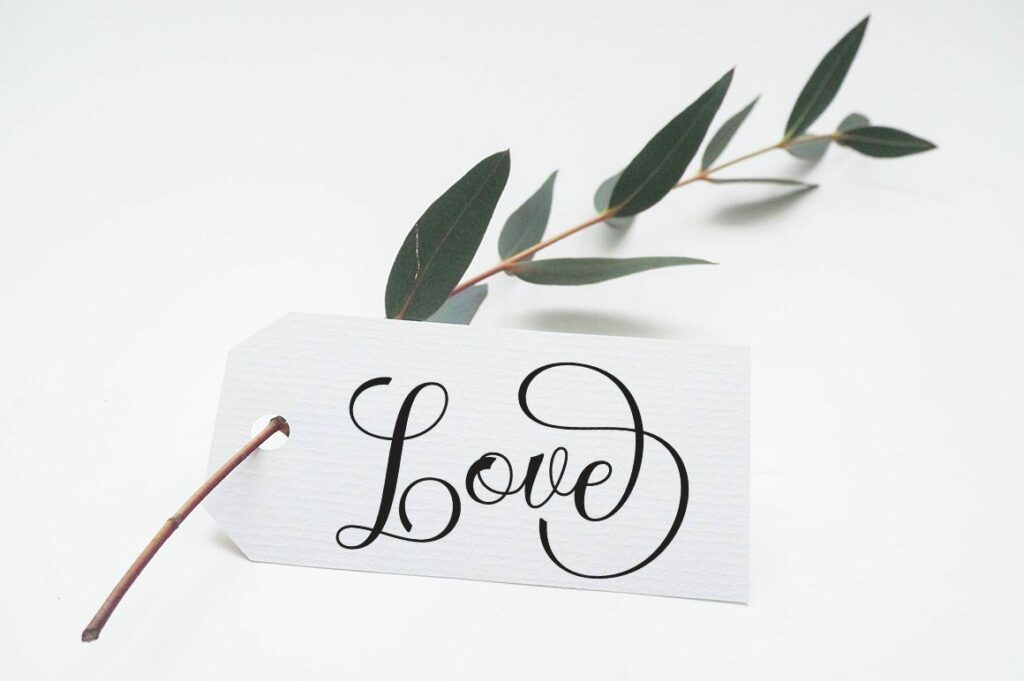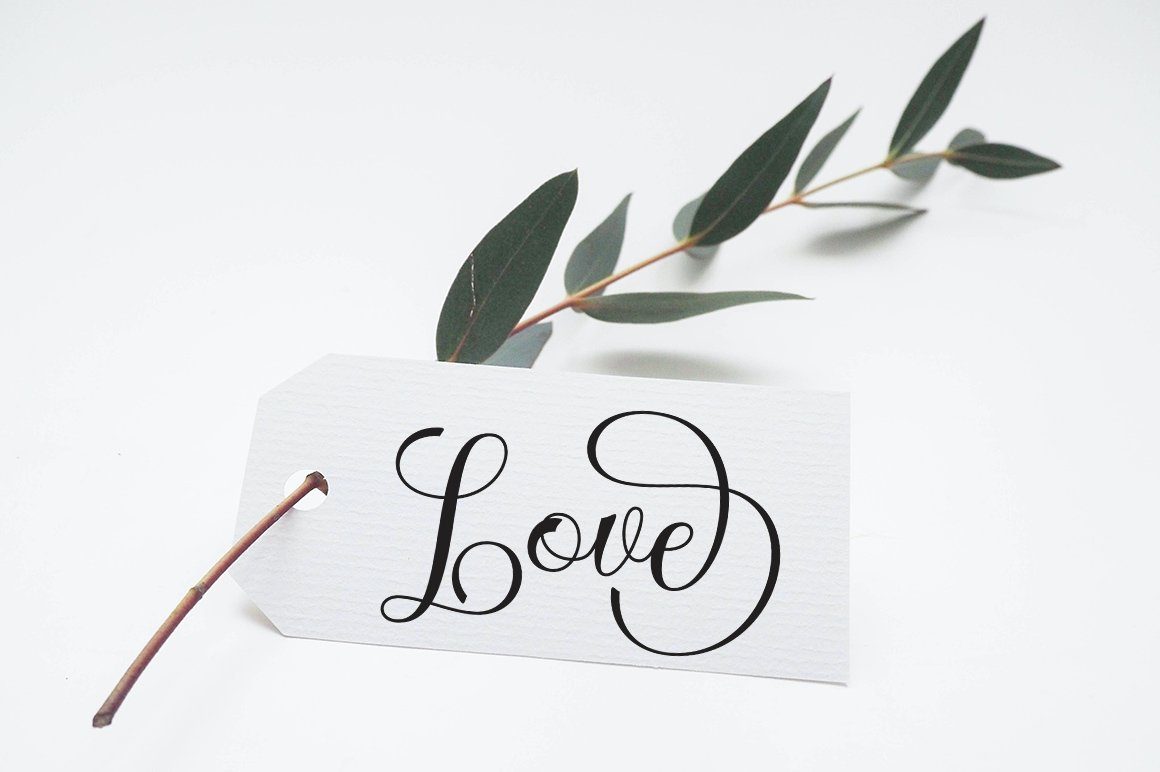
About Baby Gentha
Baby Gentha is a cute, romantic modern calligraphy typeface with the characters dancing along the baseline. It has a casual yet elegant touch. It can be used for various purposes such as logos, wedding invitations, titles, t-shirts, letterheads, name boards, labels, news, posters, badges etc. The font includes OpenType features with alternative styles, ligatures, and multiple language support. To enable OpenType Stylistic alternates, you need a program that supports OpenType features such as Adobe Illustrator CS, Adobe Indesign & CorelDraw X6-X7, Microsoft Word 2010 or a later version. There are additional ways to swap / swap, using Character Map (Windows), Nexus Fonts (Windows), Font Book (Mac) or software programs such as PopChar (for Windows and Mac). How to access all alternative characters, using Windows Character Map with Photoshop: https://www.youtube.com/watch?v=Go9vacoYmBw How to access all alternative characters using Adobe Illustrator: http://youtu.be/iptSFA7feQ0 How to use a stylish font set in Microsoft Word 2010 or later versions: https://youtu.be/x1A_ilsBsGs